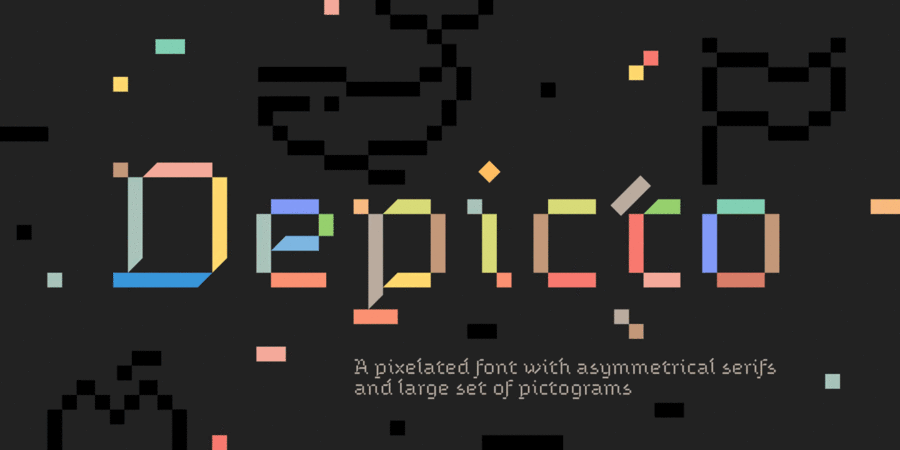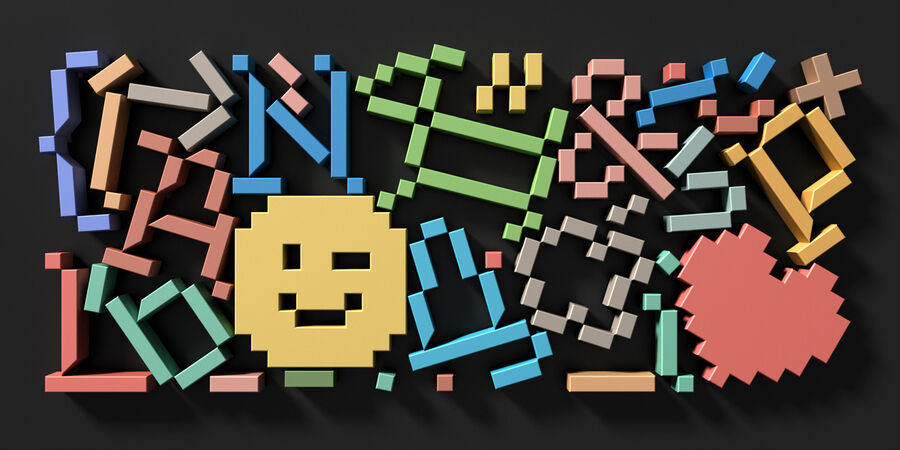
Depicto (3 fonts)
About DepictoDepicto is a pixelated typeface with asymmetrical serifs intended to depict emojis in coarse mosaic shapes and represented in two styles that perfectly complement each other – Mono (casual font) and Mosaic (color font). The main font feature is a large set of pictograms, which are activated using the Stylistic Set 1 and typed directly in text with keywords like :smile: :happy: :sad: :pear: :rose: :horse: :bike: :house: and so on. See the complete list of 600+ pictograms in the Specimen PDF.
Concept As a child, I loved playing with plastic construction bricks. And of course, I loved 8-bit video games. All of this has been reinterpreted in the Depicto typeface. Out of respect for 8-bit aesthetics, almost all the dimensions are multiples of 8 – letter elements have a width of 80 points and a length of 80, 160, 240, 400, and so on, as well as the spacing between the characters and the vertical metrics. Although inspired by pixelation, the font plays with its own geometry. Using simple squared shapes, it balances between pixel-perfect structure and diagonal mosaic. The letter construction is based on rectangles – horizontal, vertical, and rotated by 45 degrees. It is important to note that letters consist of separate non-intersecting elements, each of which, in the Depicto Mosaic font style, is painted in different colors. The font also features upper-left and lower-right horizontal serif strokes. Such asymmetrical serifs are typical of Ukrainian typography since the works of Heorhiy Narbut. Their digitization and pixelation call for a new perspective on artistic constants. Tech details Specimen: https://michaelrafailyk.com/typeface/specimen/Depicto.pdfStyles: Mono, Mosaic COLOR (color font), Mosaic SVG (color font) Scripts: Extended Latin, European & Asian Cyrillic, Greek, Hebrew, Arabic, Georgian. Languages: 500+. List of supported languages: https://michaelrafailyk.com/depicto Kerning: 906 class-to-class pairs Hinting: Manual PostScript Format: OTF – OpenType with PostScript outlines Features Color fonts: Depicto Mosaic COLOR (for web browsers and Windows applications) and Depicto Mosaic SVG (for Adobe applications) are dedicated to my love for plastic construction bricks. Every letter element is painted in a random but non-repeating color from a palette of 17 predefined colors. This palette is selected in such a way that it looks sufficiently contrasting on both white and black backgrounds. However, you can change the palette in Photoshop by using Color Overlay in Blending Options (see examples in the promo images) or in Illustrator by converting the text to outlines and then using Recolor Artwork. Color fonts are supported since: Photoshop CC 2017, Illustrator CC 2018, InDesign CC 2019, QuarkXPress 2018, Pixelmator (macOS 10.14), Sketch (macOS 10.14), Affinity Designer (macOS 10.14), Paint.NET (Windows 10), Microsoft Word (Windows 10), Windows 10, macOS 10.13 High Sierra, Safari 11 (macOS 10.13, iOS 12), Chrome 70, Firefox 26, Opera 58, Edge 12 (Windows 10), IE 9 (Windows 8). Applications that do not support color fonts yet: Figma, Adobe XD, Premiere Pro, After Effects. In these applications, the Depicto Mosaic font style will appear in a fallback black color. Stylistic Set 1 “Pictograms”: The main font feature is a large set of 600+ pictograms and emoticons. See the complete list of pictograms and their keywords in the Specimen PDF. It does not cover all possible Unicode pictograms, but the set may be expanded in future updates. There are three ways to use them. How to apply Stylistic Set 1. InDesign (2017+): Character panel > OpenType button > Stylistic Sets.Illustrator (2017+): OpenType panel > Stylistic Sets icon. Photoshop (2020+): Properties panel > Type Options > Stylistic Sets icon. CSS: font-feature-settings: "ss01" 1; Stylistic Set 2 “Change Emoji Skin Tone”: This allows changing the skin tone of emoticons (smileys). In Depicto Mosaic, classic yellow smileys become brown. In Depicto Mono, the result depends on the background color – for a white background, white faces are replaced by black ones, and for a black background, black faces are replaced by white ones. Remember: when switching the background color from light to dark or vice versa using Depicto Mono, the faces appear inverted. You can use this Stylistic Set to reinvert them if needed. Stylistic Set 3 “Arrows”: Left <- Right ->; Up <| Down |> Left Right <-> Up Down <|> North West <\ North East /> South East \> South West Stylistic Set 4 “Circled Numbers”: Numbers are replaced with numbers in a circle. Stylistic Set 5 “Circled Black Numbers”: Numbers are replaced with numbers in a black circle. Small Capitals: Lowercase letters are replaced with Small Caps forms. Capitals to Small Capitals: Uppercase letters, all figures, and some punctuation are replaced with Small Caps forms. Figures (numbers): Lining, Oldstyle, Proportional, Tabular, Circled, Circled Black, Superscript, Subscript, Numerator, Denominator. Fractions: ¼½¾⅐⅑⅒⅓⅔⅕⅖⅗⅘⅙⅚⅛⅜⅝⅞⅟ (precomposed). Any other fractions (even those typed through a slash) will also be displayed correctly, with automatic replacement to Numerator + fraction + Denominator. Slashed Zero: Lining and Oldstyle 0 figures are replaced with a slashed/dotted zero. Ordinals: adehlnorst Case Sensitive Forms: ()[]{}‹›«»-–—•·#%‰@ and arrows are centered on capitals. Oldstyle figures (if presented) are replaced with Lining figures. Case conversion for monotonic Greek: ΆΈΉΊΌΎΏ. Greek uppercase accented characters lose their tonos accent and retain only dieresis in All Caps mode. Turned on by default. If you need tonos accents in All Caps, turn off the Contextual Alternates (calt) feature. Standard Ligatures: ff Localized Forms: Characters substituted by their adapted alternate form for Azeri, Bulgarian, Catalan, Dutch, German, Kazakh, Macedonian, Moldavian, Polish, Romanian, Serbian, Tatar, Turkish languages. Glyph Composition/Decomposition: Set of diacritics (600+ characters) precomposed from base characters and combined diacritical marks. Mark Positioning: Diacritical marks positioned for base characters. The typeface was designed by Michael Rafailyk in 2023 and updated with expanded language support in 2024. Depicto supports 111 languagesUkrainian, English, German, Polish, Portuguese, Spanish, Georgian, Kazakh, Hebrew, French, Greek (modern), Arabic, Vietnamese, Russian, Czech, Dutch, Italian, Swedish, Turkish, Finnish, Belarusian, Greek, Tatar, Serbian, Bulgarian, Estonian, Lithuanian, Albanian, Afrikaans, Basque, Breton, Valencian, Galician, Gaelic (Scottish), Danish, Indonesian, Irish, Icelandic (Win), Karakalpak, Catalan, Norwegian, Occitan, Rhaeto-Romance, Sami Lule, Tswansky, Uzbek (Lat.), Faroese, Frisian, Chamorro, Estonian (Win), South Sami, Albanian (Win), Hungarian, Upper leprechauny, Karelian, Latvian (Mac), Lithuanian (Mac), Maori (Mac), Moldovan (Lat.), Lower Sorbian, Romanian (Win), Slovak, Slovenian, Turkmen (Lat.), Croatian (Win), Estonian (Mac), Kurdish, Latvian, Maori, Romanian, Abazin, Avar, Agul, Adyghe, Darginsky, Ingush, Kabardino-Circassian, Kabardian, Karachay-Balkar, Kumyk, Lak, Lezghian, Macedonian, Mordovian-Moksha, Mordovian-Erzya, Nogai, Rutulian, Tabasaran, Tatar, Tsakhur, Chechen, Azerbaijani (Cyrillic), Bashkir, Buryat, Dungan, Kalmyk, Kirghiz, Mongolian (Cyrillic), Tajik, Talysh, Tuvan, Turkmen (Cyrillic), Uzbek (Cyrillic), Uighur, Yiddish, Tatar (Hebrew), Dari, Malay, Persian (Farsi), Pashtun, Urdu Functions of font family DepictoTypeface use in layout: